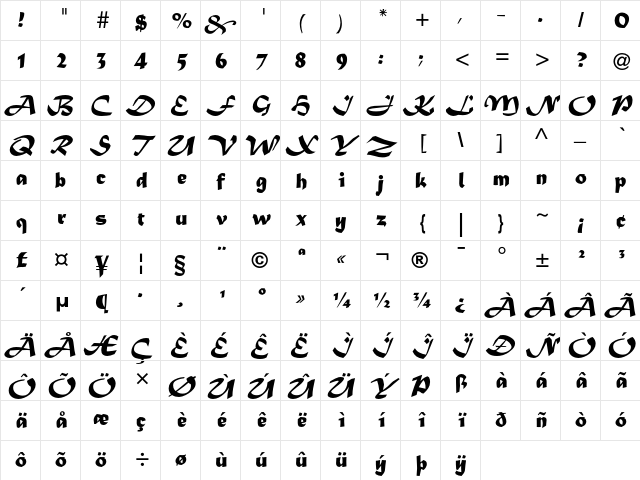
Matura MT Script Capitals
Style: Script Capitals
Design Context for Matura MT
Matura MT flows with the natural rhythm of handwritten lettering, making it ideal for designs that call for warmth and personal expression.
Font Pairing: Combine Matura MT with a simple geometric sans for maximum contrast - the tension between flowing curves and clean structure is a classic typographic pairing.
Pro Tip: Use Matura MT for short runs of text - names, titles, or taglines. Extended body copy in script faces tires the eye quickly.